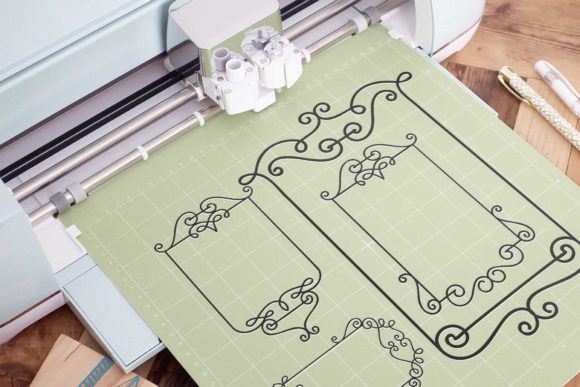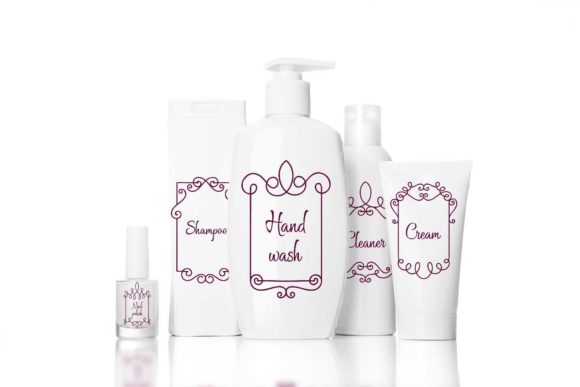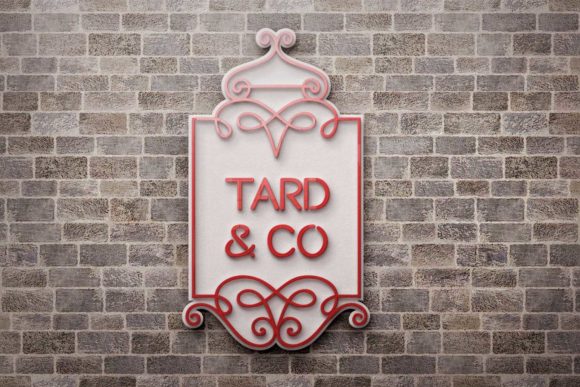
Introduction to Frame Creator Font
Do you remember the thrill of rummaging through your grandmother’s craft box, filled with colorful stickers, glitter, and intricate designs? For many of us, that’s where our love for creative projects began. Today, we’re excited to share a game-changing resource that will elevate your designs to the next level – the Frame Creator Font.
Whether you’re a seasoned designer or a hobbyist looking to spice up your presentations, greeting cards, or digital designs, this high-quality dingbats font is a must-have. With its transparent background and versatility, the Frame Creator Font is the perfect design resource for any creative project. And the best part? It’s available for free download, making it an invaluable addition to your design toolkit.
Key Features of Frame Creator Font
- High-quality vector graphics with a transparent background, perfect for creative projects.
- Resolution-independent design ensures crisp and clear visuals regardless of screen size or resolution.
- Unique, handcrafted design elements ideal for use as a design resource in various creative projects.
- Comes with a range of customizable elements, including frames, borders, and decorative shapes.
- Supports various design styles, from modern to vintage, making it a versatile design resource.
- High-resolution images (up to 300 DPI) for use in print materials, such as posters, flyers, and brochures.
Honest Review: Frame Creator Font
As a designer, I’m always on the lookout for high-quality design resources that can elevate my creative projects. Recently, I stumbled upon the Frame Creator Font, and I must say it’s been a game-changer. ✨
This font is perfect for designers who need a versatile and modern look for their designs. It’s a free download, which is a huge plus, and it’s incredibly easy to use. The transparent background makes it easy to layer and combine with other design elements.
- Transparent background makes it easy to customize
- Modern and versatile design that’s perfect for a variety of projects
- May not be suitable for projects that require a lot of bold or dramatic typography
- Some users may find the font a bit too simple or generic
Overall, I’m really impressed with the Frame Creator Font. It’s a great addition to any designer’s toolkit, and it’s perfect for designers who need a high-quality, easy-to-use font for their creative projects.